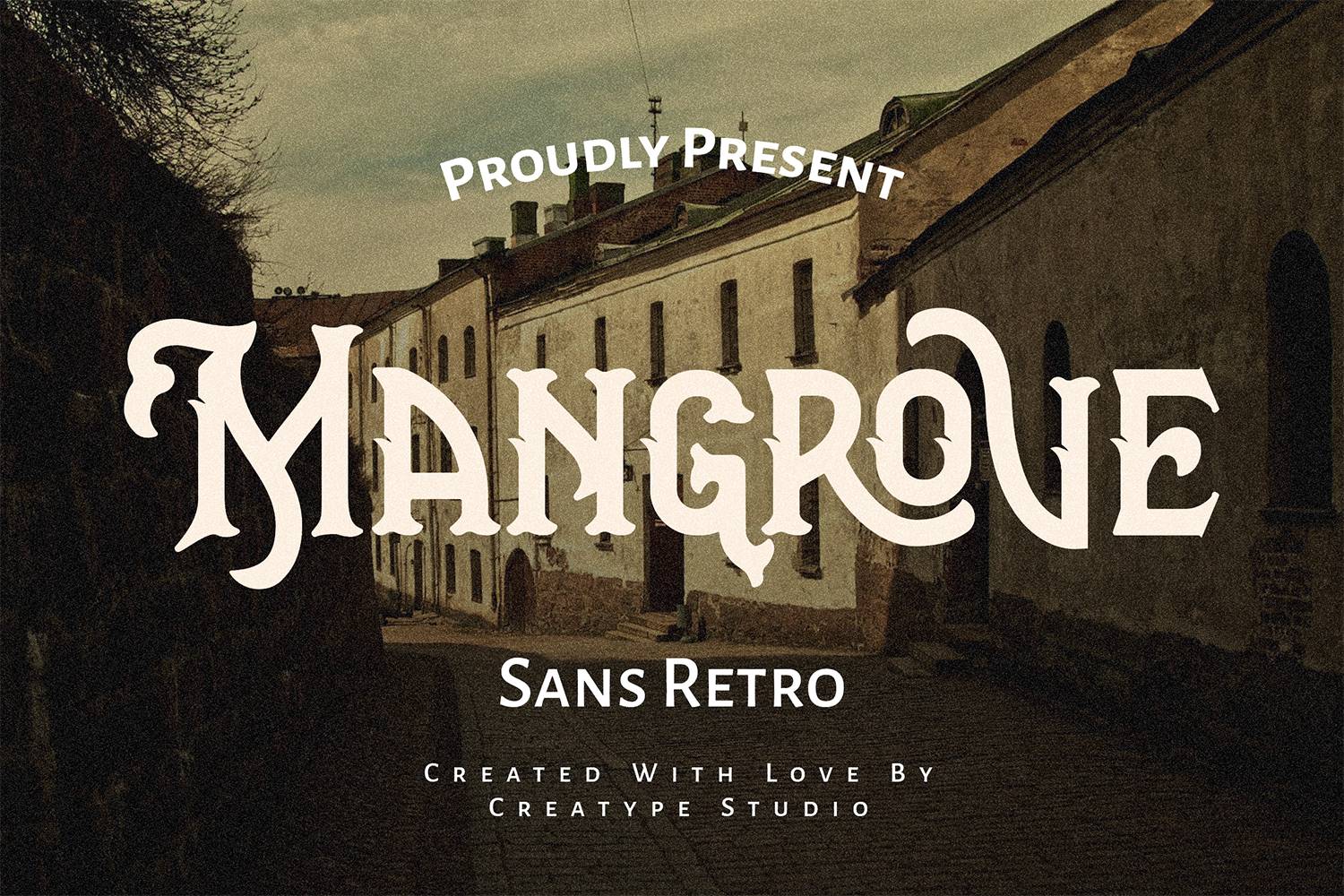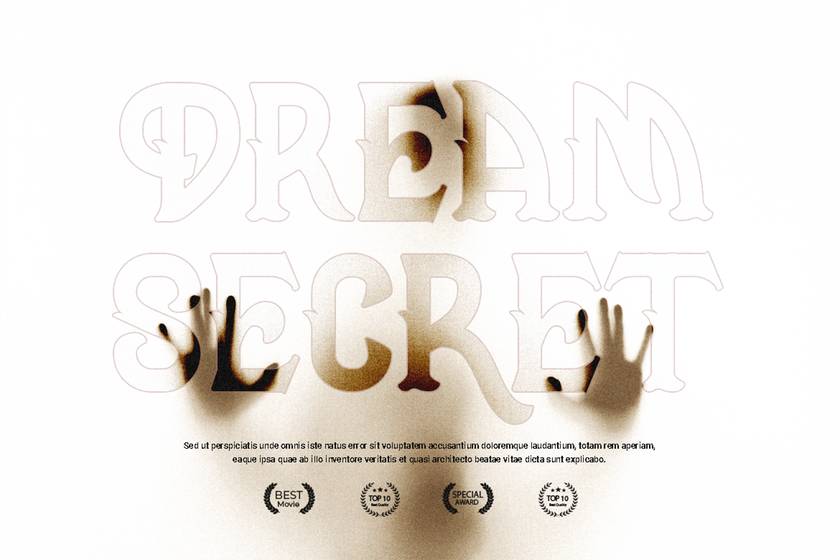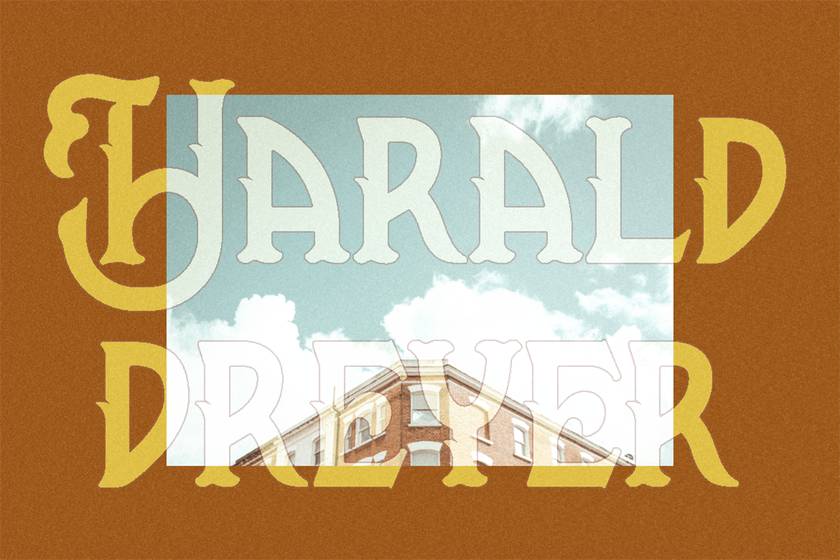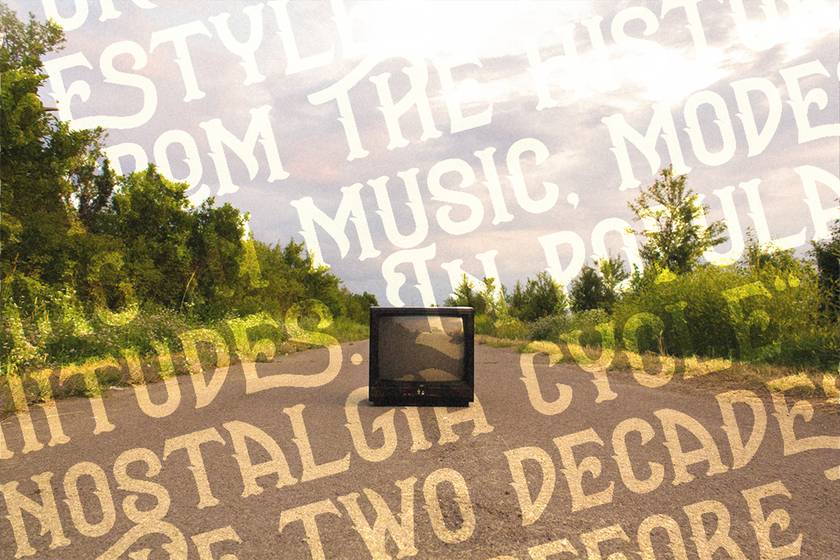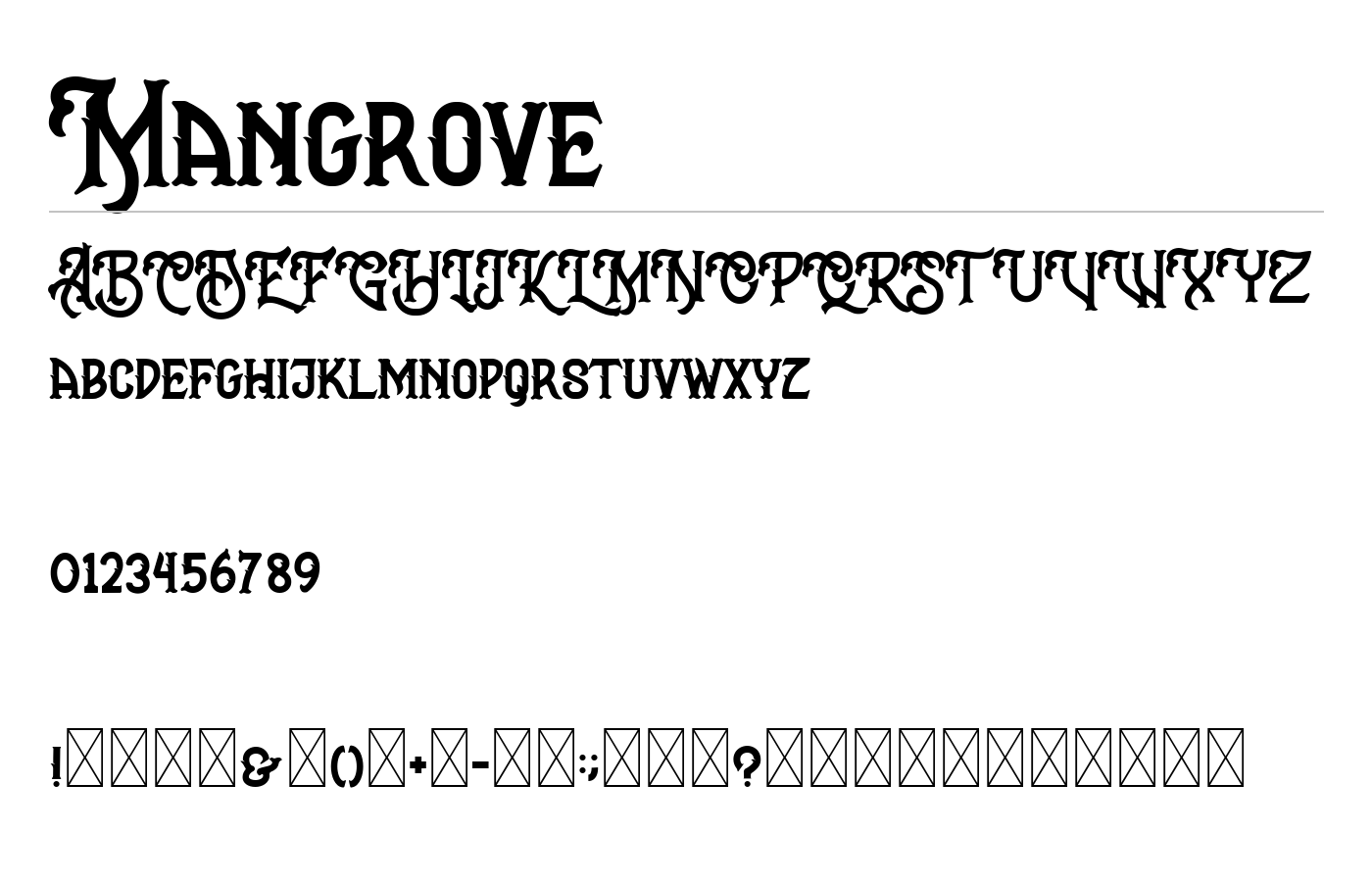
Mangrove is a bold, ornamental serif font with a gothic-inspired style, featuring sharp, intricate serifs and dramatic strokes that lend it a vintage and mysterious character. Its condensed letterforms and high contrast between thick and thin lines make it ideal for striking headlines, logos, and branding that seeks to evoke a sense of tradition, power, and elegance. This font works particularly well for projects needing a strong, timeless personality with a dark, artistic edge.
Mangrove Font
About Mangrove Font